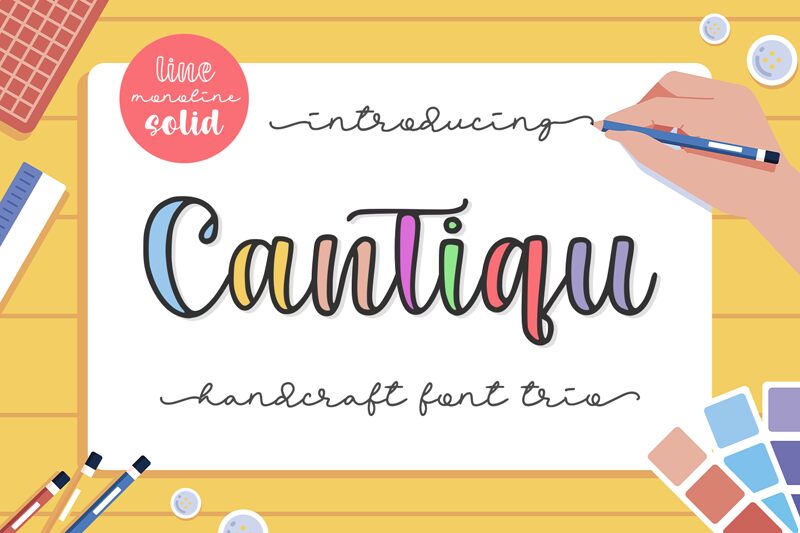
Cantiqu Monoline font by Abo Daniel Studio is an elegant handwritten font characterized by casual elegance, fluidity, and a modern touch. It features the classic hand-writing style which gives it an element of freedom and lightness. With smooth strokes and perfect continuity between each letter, there’s not a single imperfection in every line that captivates anyone around it.
This free handwritten font is perfect for adding sophistication to invitations, stationery products, quotes on social media platforms, business cards, logos & branding projects or presentations; book covers too! Use it to create stylish advertisements as well as posters inside retail environments; stand out with awe-inspiring typesetting thanks to Cantiqu Monoline’s timeless charm!
It comes with three different fonts:
- CANTIQU LINE
- CANTIQU SOLID
- CANTIQU MONOLINE